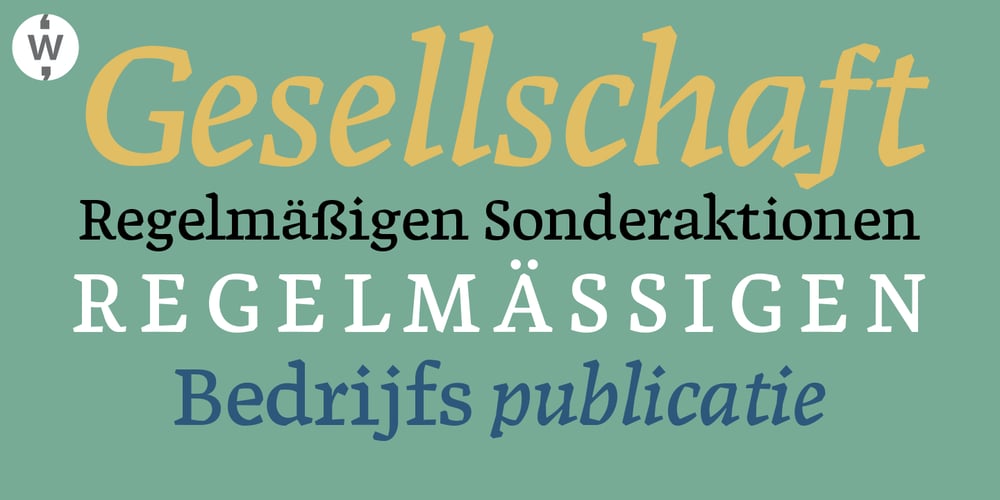
Zentral Font Family was designed by Robbie de Villiers and published by Wilton Foundry. Zentral contains 2 styles and family package options. My goal in designing Zentral was to create a distinctive sculptural font intentionally in Regular and Italic only. I believe Zentral Regular and Italic has the latitude and flexibility needed in most type scenarios without having to resort to multiple weights. Zentral Regular upper/lowercase provides a very pleasant contrast and can be varied by using Zentral Regular capitals. Zentral Italic is ideal for creating emphasis of words, quotes or phrases. This combination provides maximum impact and readability. Zentral is a contemporary font ideal for branding, packaging, advertising, editorial in print and e-print applications.